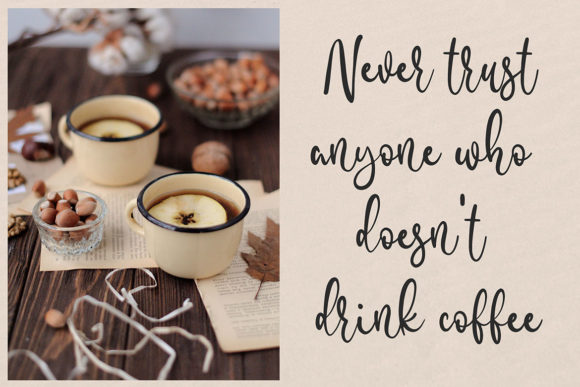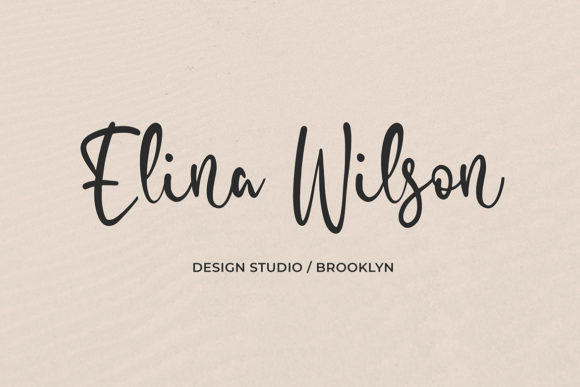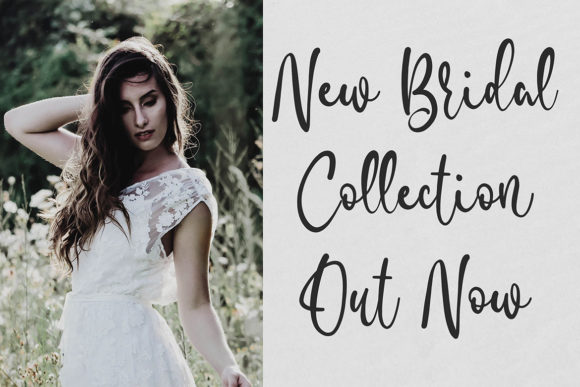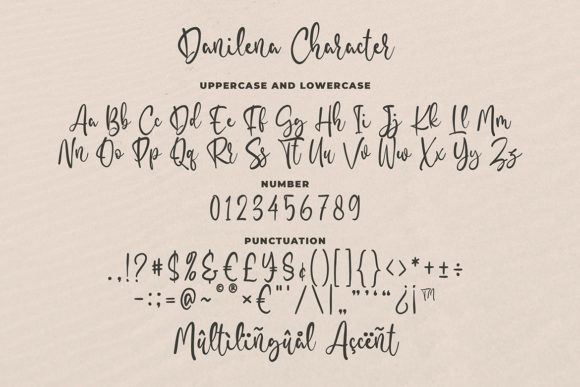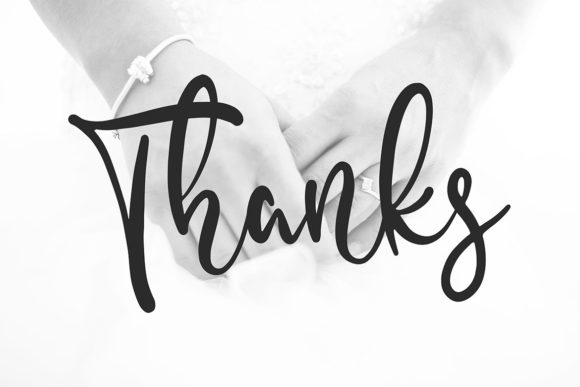
Discover the Whimsical Charm of Danilena Font: A Crafting Delight
Are you a designer or crafter looking for a font that adds a touch of playfulness and personality to your projects? Look no further than Danilena Font, a unique and extraordinary crafting font that’s sure to capture your imagination. Because of its playful lettering and bouncy baseline, Danilena is an ideal choice for crafters and designers seeking to infuse their work with a sense of whimsy and fun.
The Unique Characteristics of Danilena Font
Danilena Font boasts a distinctive and eye-catching design, characterized by its irregular lettering and bouncy baseline. This crafting font is reminiscent of handwritten script, with each letter carefully crafted to create a sense of movement and energy. The playful nature of Danilena makes it perfect for a wide range of creative projects, from DIY crafts and scrapbooking to digital design and branding.
What Makes Danilena Font Stand Out?
- Playful Lettering: Danilena’s letters are designed with a carefree spirit, featuring irregular shapes and sizes that add to the font’s charm.
- Bouncy Baseline: The font’s baseline has a lively, bouncy feel that gives it a sense of movement and dynamism.
- Handwritten Feel: Danilena’s handwritten aesthetic makes it perfect for creating personalized and unique designs.
- Versatility: This crafting font can be used for a wide range of projects, from digital designs to handmade crafts.
Using Danilena Font in Your Designs
Danilena Font is an incredibly versatile font that can be used in a variety of creative projects. Here are some ideas to get you started:
- Scrapbooking: Add a touch of whimsy to your scrapbook pages with Danilena’s playful lettering and bouncy baseline.
- DIY Crafts: Use Danilena Font to create personalized labels, tags, and other embellishments for your DIY crafts.
- Digital Design: Incorporate Danilena into your digital designs, such as social media graphics, blog posts, and branding materials.
- Handmade Cards: Add a personal touch to your handmade cards with Danilena’s beautiful, handwritten lettering.
Tips for Getting the Most Out of Danilena Font
To make the most of Danilena Font, here are a few tips to keep in mind:
- Experiment with Colors: Danilena Font looks great in a variety of colors, so don’t be afraid to experiment and find the perfect hue for your project.
- Mix and Match: Combine Danilena with other fonts to create a unique and eye-catching design.
- Play with Size: Danilena Font looks great in a range of sizes, from small and delicate to large and bold.
Danilena Font is a one-of-a-kind crafting font that’s sure to bring a touch of whimsy and personality to your designs. With its playful lettering and bouncy baseline, this extraordinary font is perfect for crafters and designers looking to create unique and eye-catching projects. Whether you’re working on a scrapbook page, DIY craft, or digital design, Danilena Font is sure to inspire your creativity and bring a smile to your face.